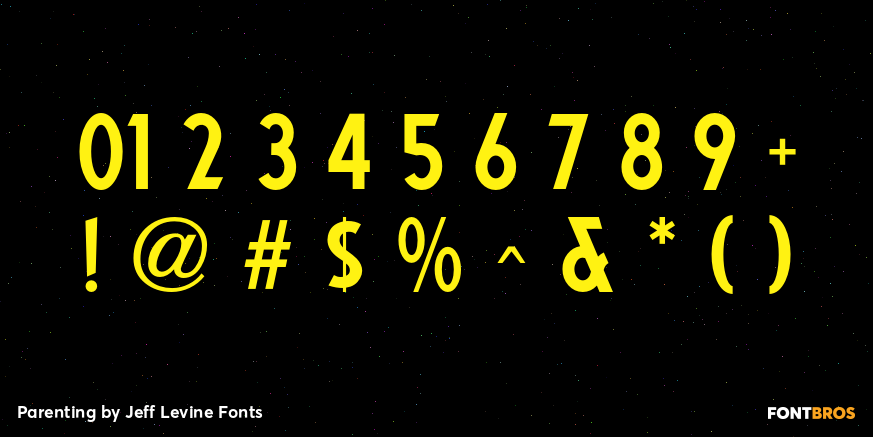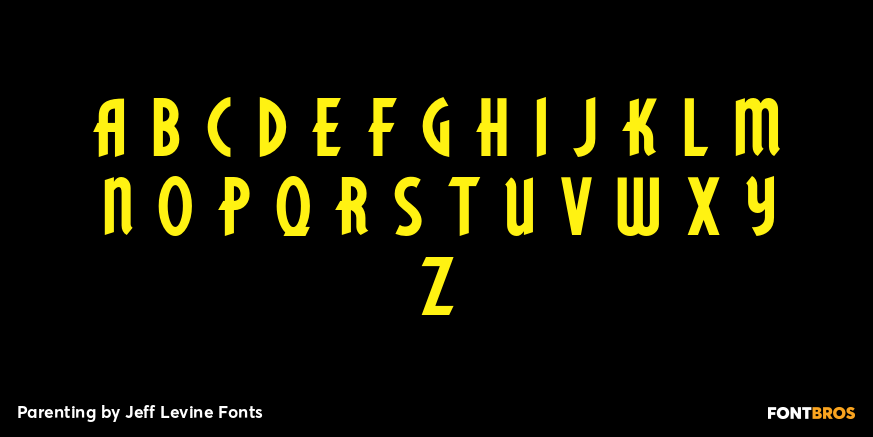
Parenting
Parenting JNL is a stylized Art Deco sans serif type design originally found on a vintage WPA (Works Progress Administration) poster designed by the Federal Art Project and touting the topic of 'The Job of Being a Parent”.